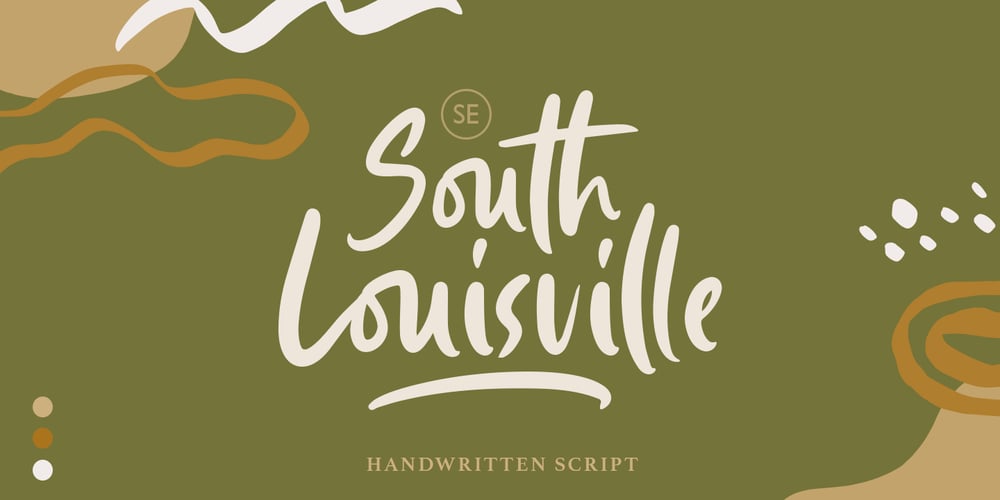
South Louisville Font Family was designed by Sarid Ezra and published by Sarid Ezra. South Louisville contains 1 styles and family package options. South Louisville is an applicable handwritten font that contains uppercase, lowercase, number and symbol, also comes with ligatures and underline. This font support multi language!